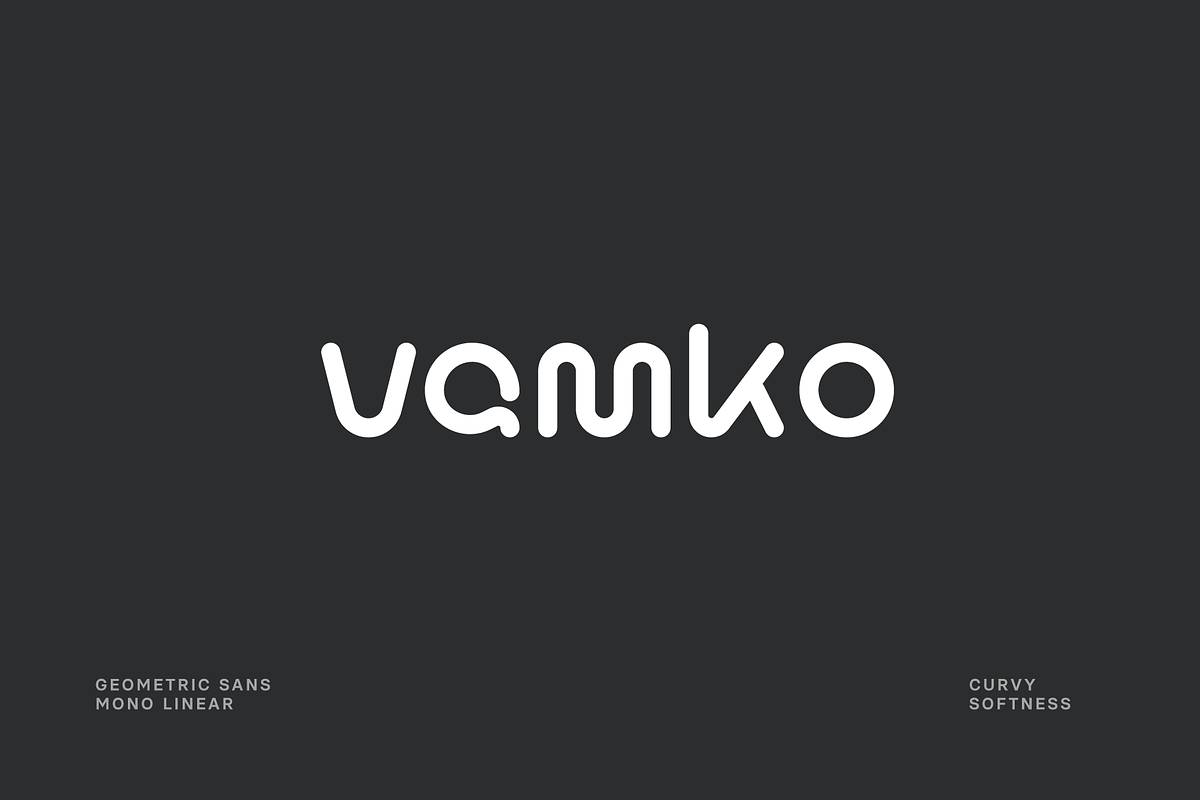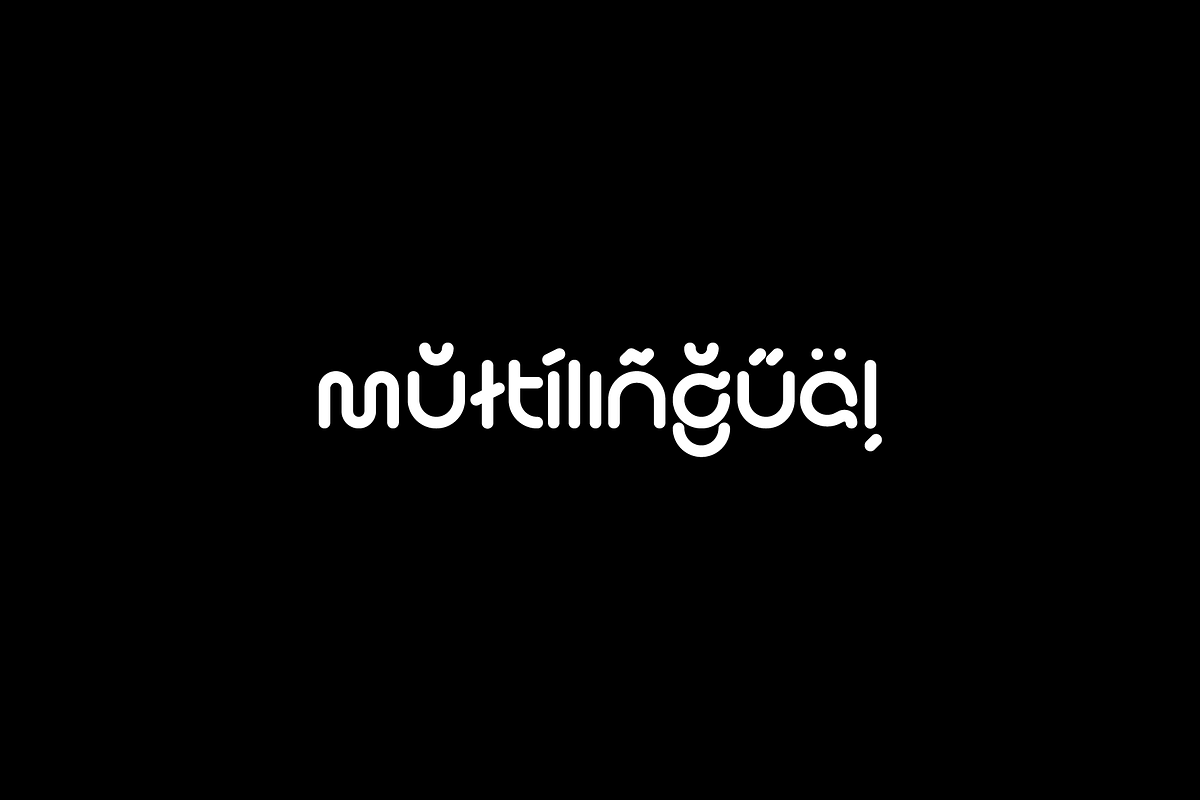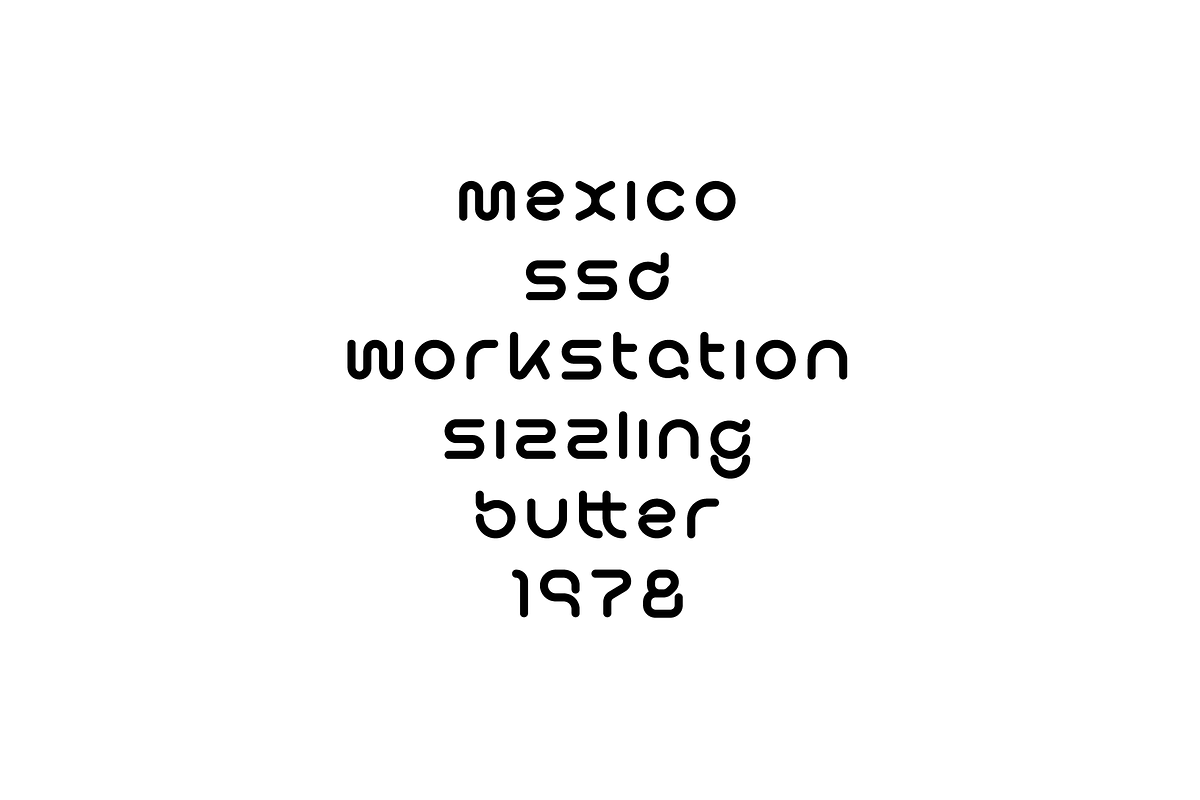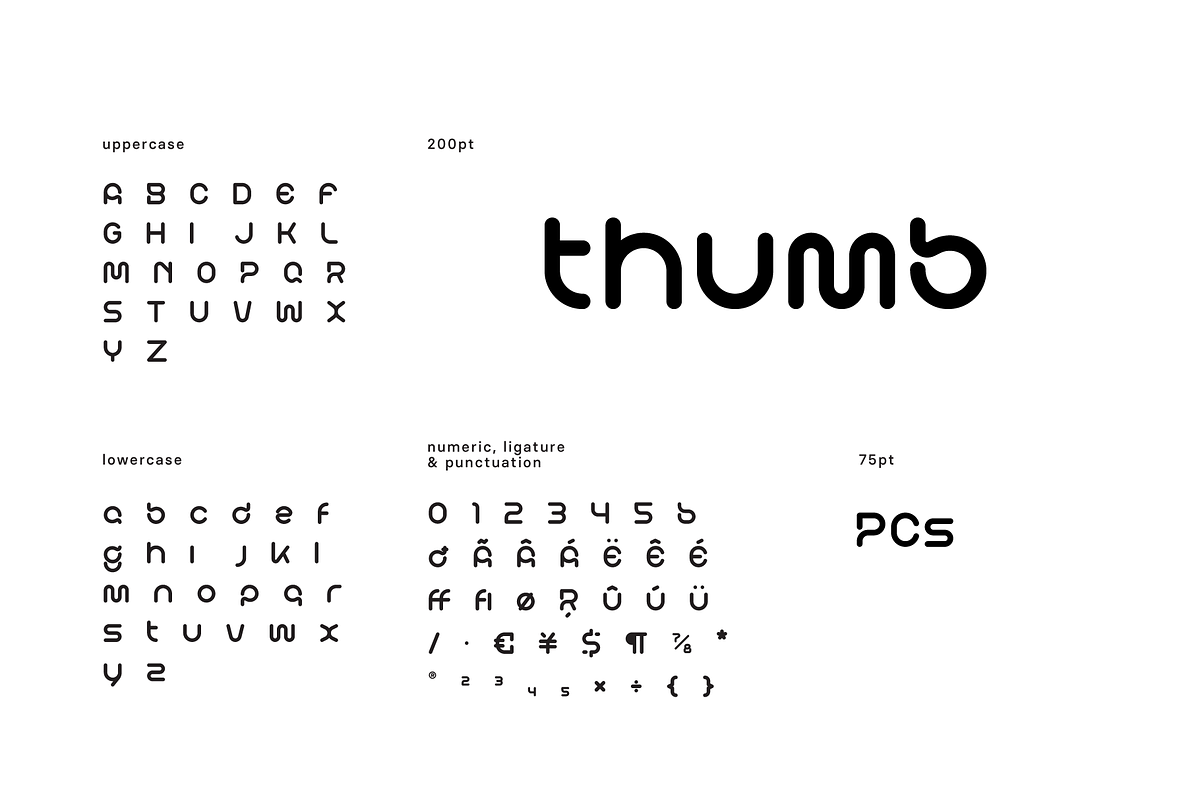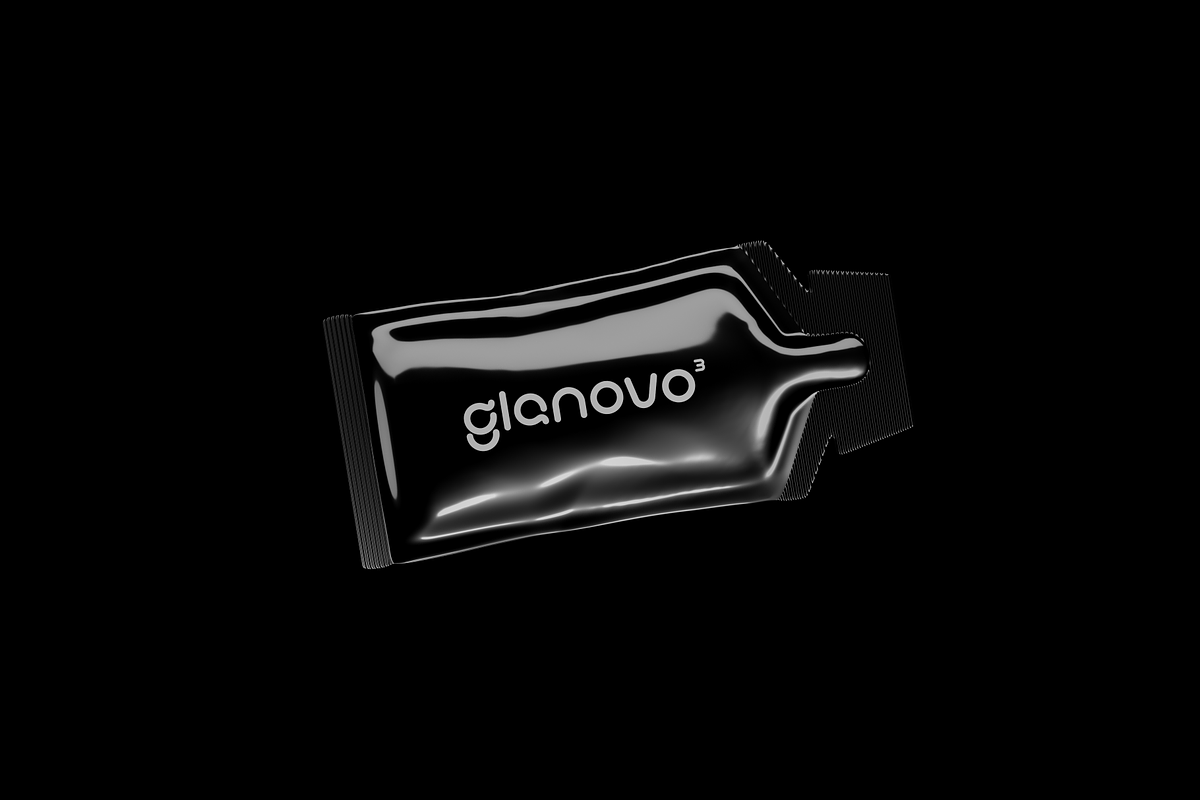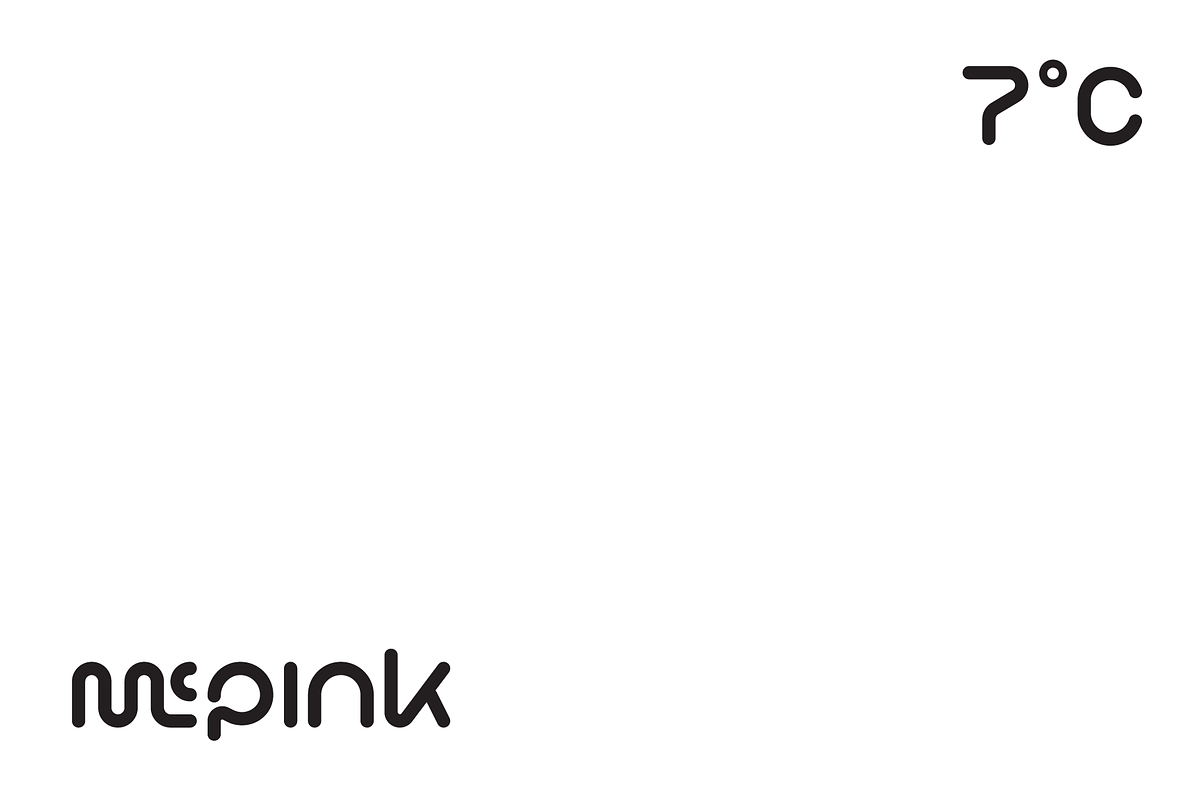
Vamko Sans Font
Vamko is a smooth and mono linear sans apt for headline, editorial, branding, packaging, printed materials and typographic applications.
- Dual weights
- Ligatures and fractions
- Latin multilingual
- 350+ glyphs